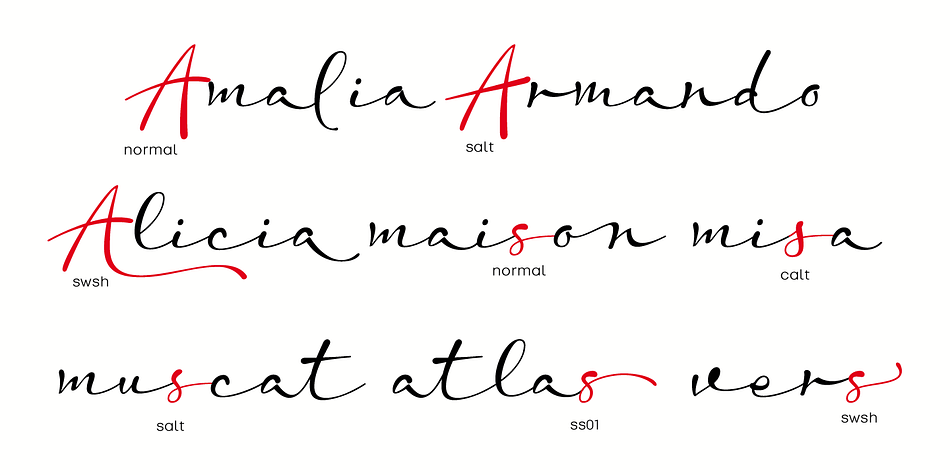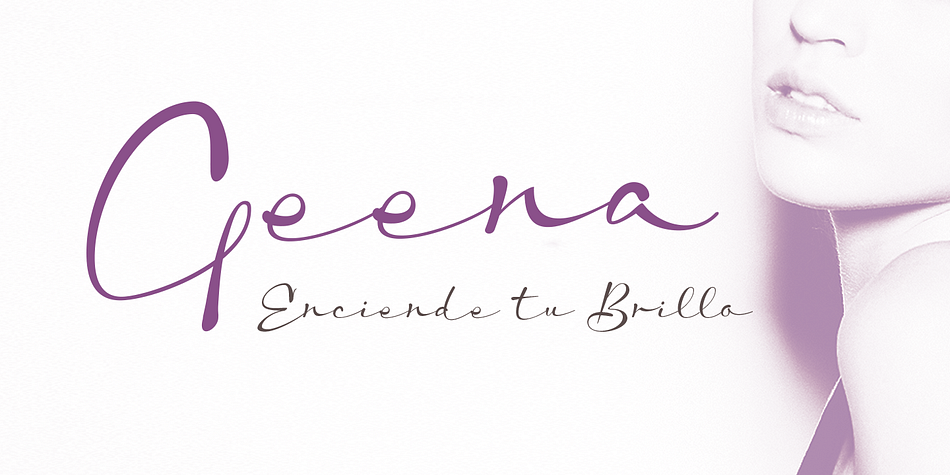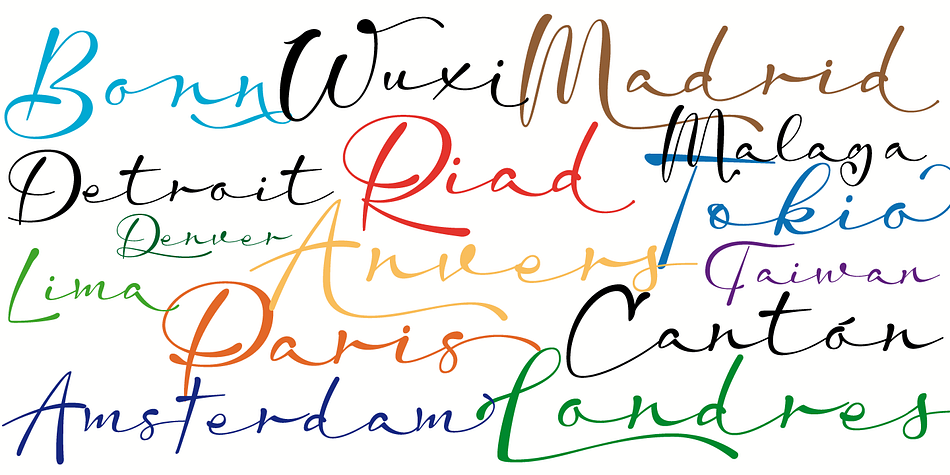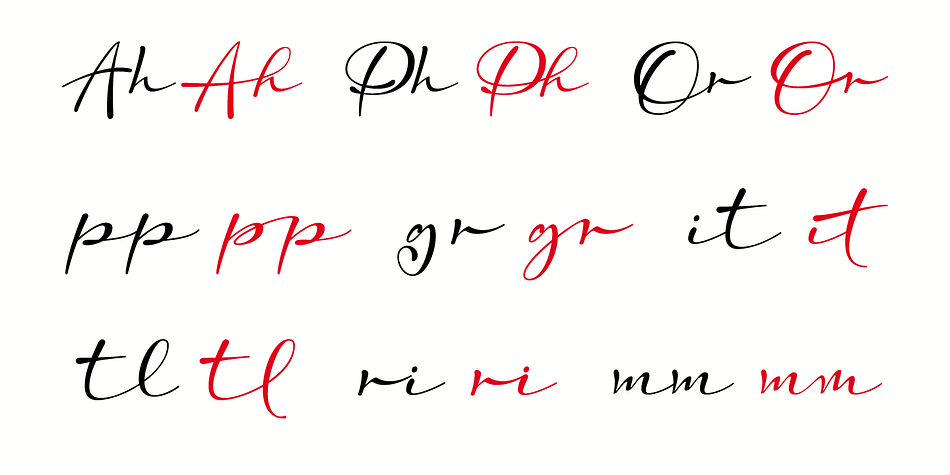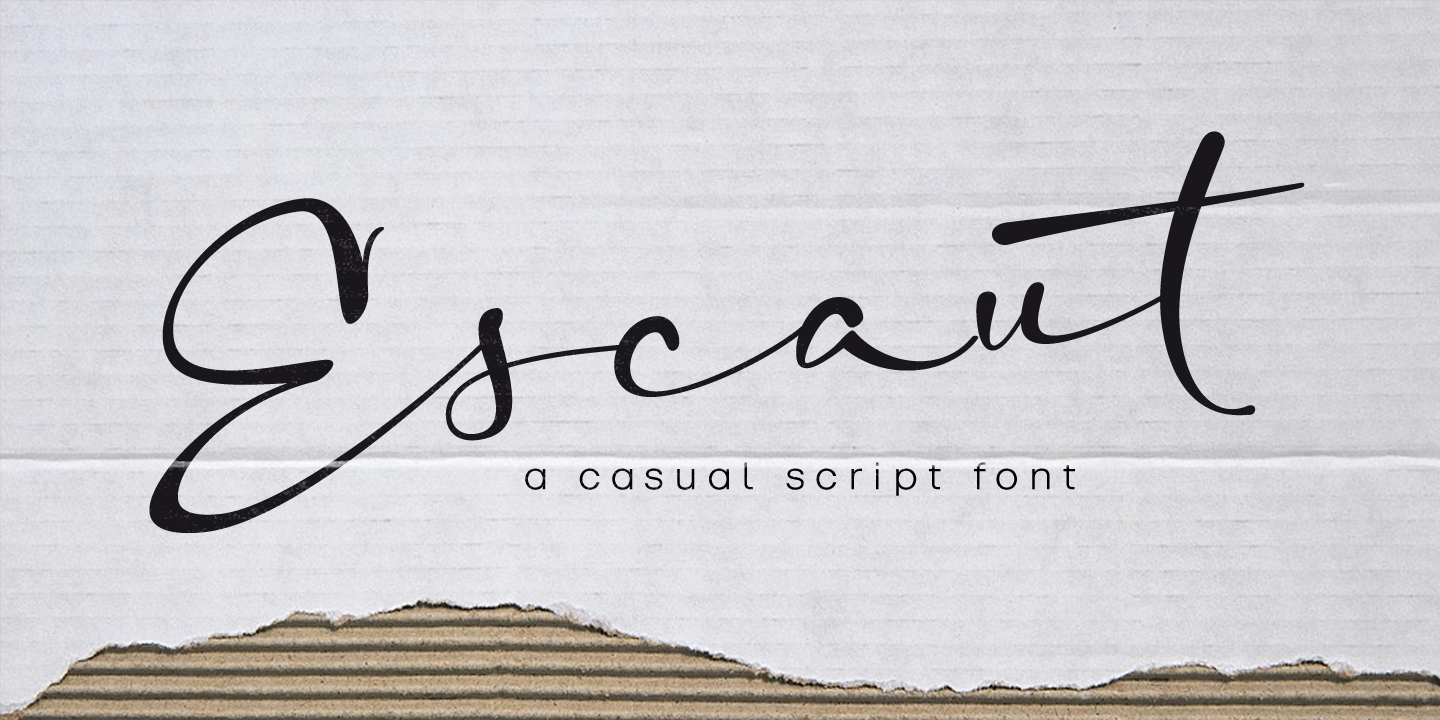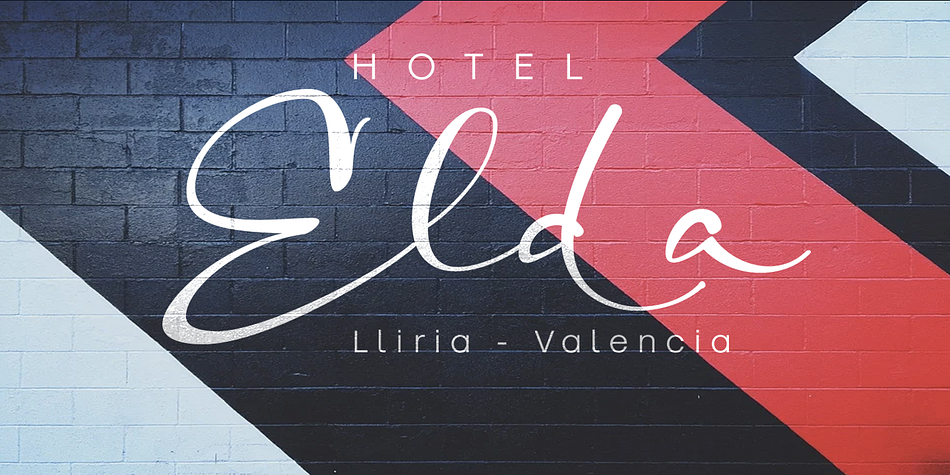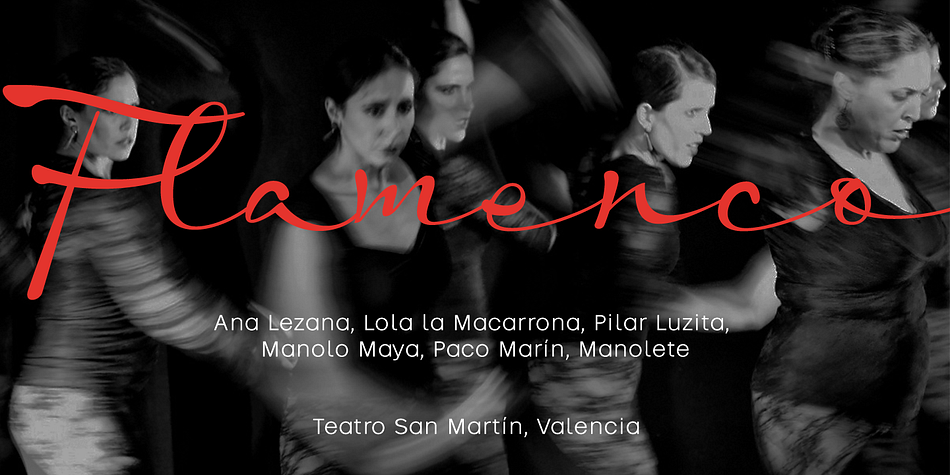
Designed by Carine de Wandeleer, Escaut is a modern calligraphy and script font published by Eurotypo.
Escaut is a modern calligraphic font, with a casual style and a lot of rhythm. It is designed with a pen with its characteristic ink discharges. Escaut includes a huge variety of ligatures and decorative characters in upper and lower case, to give it more handwriting reality. Enjoy it !!